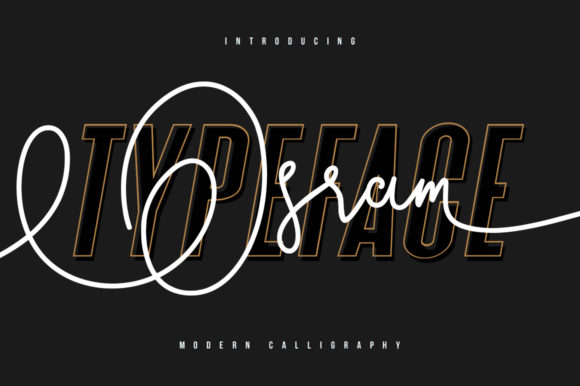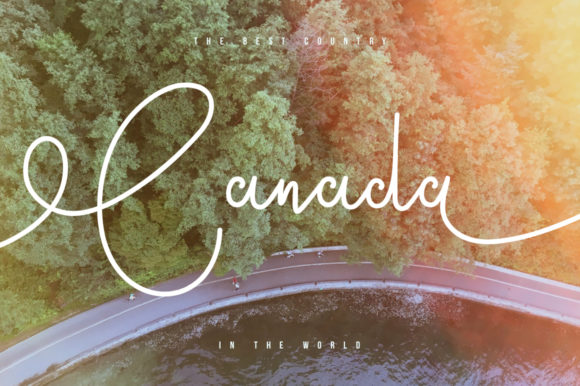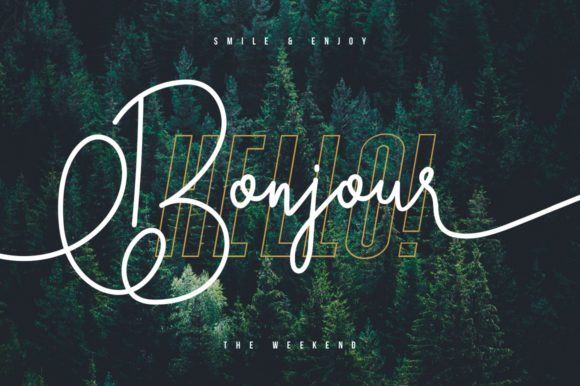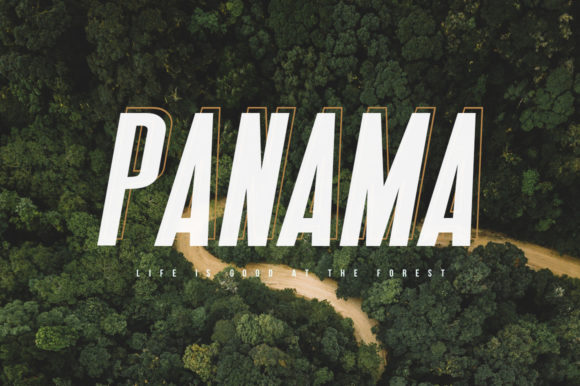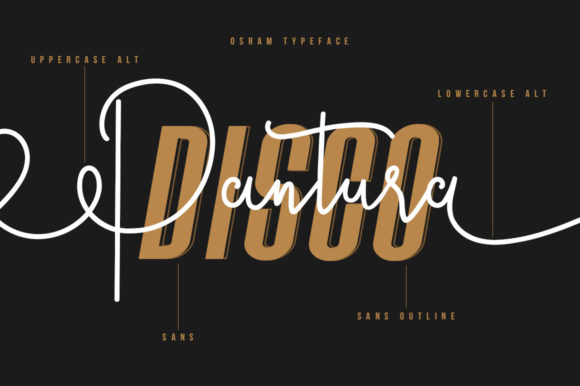
About Osram Font
Osram is a spectacular duo font (sans serif and script). Incredibly versatile, this font fits a wide pool of designs, elevating them to the highest levels. Add this font to your favorite creative ideas and notice how it makes them come alive!